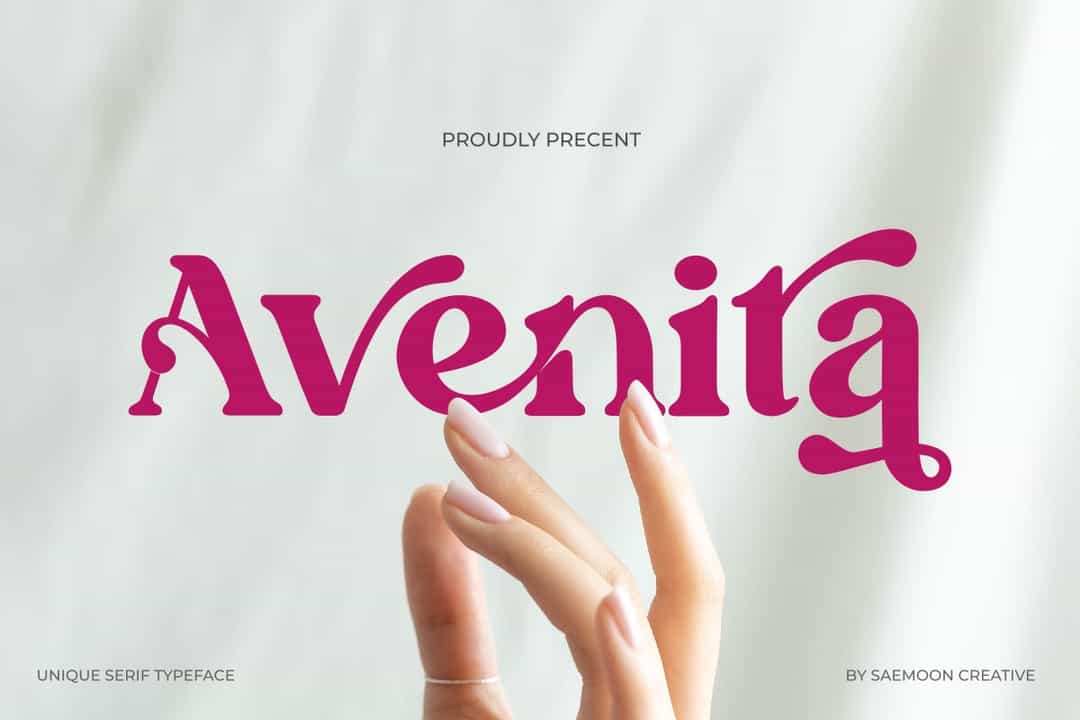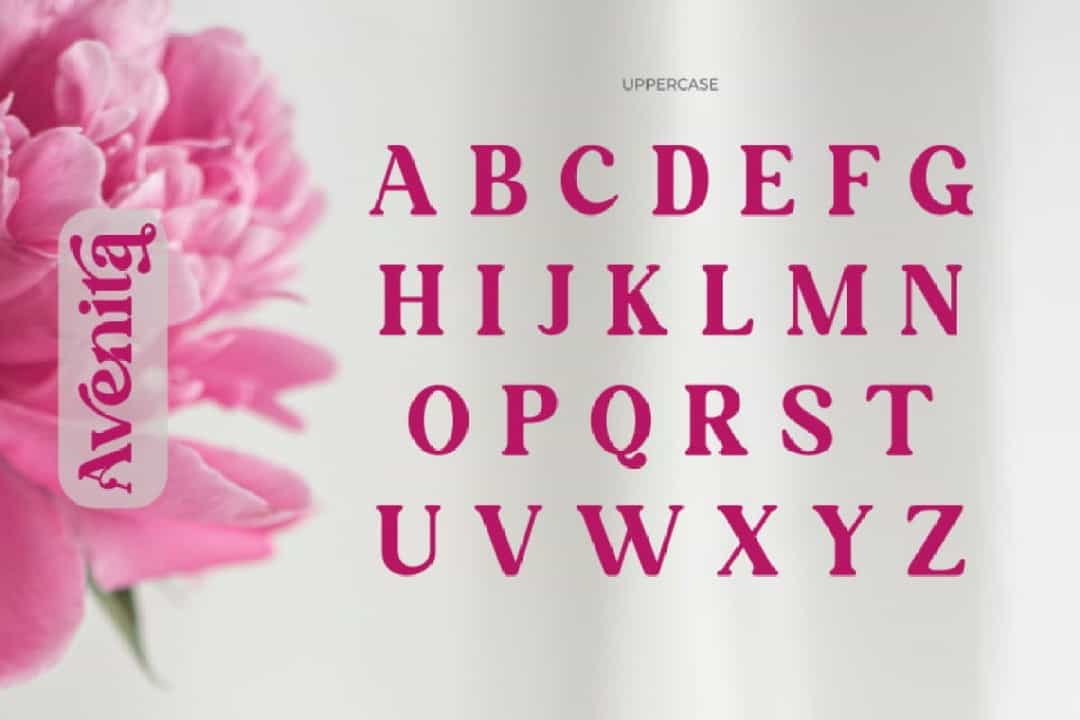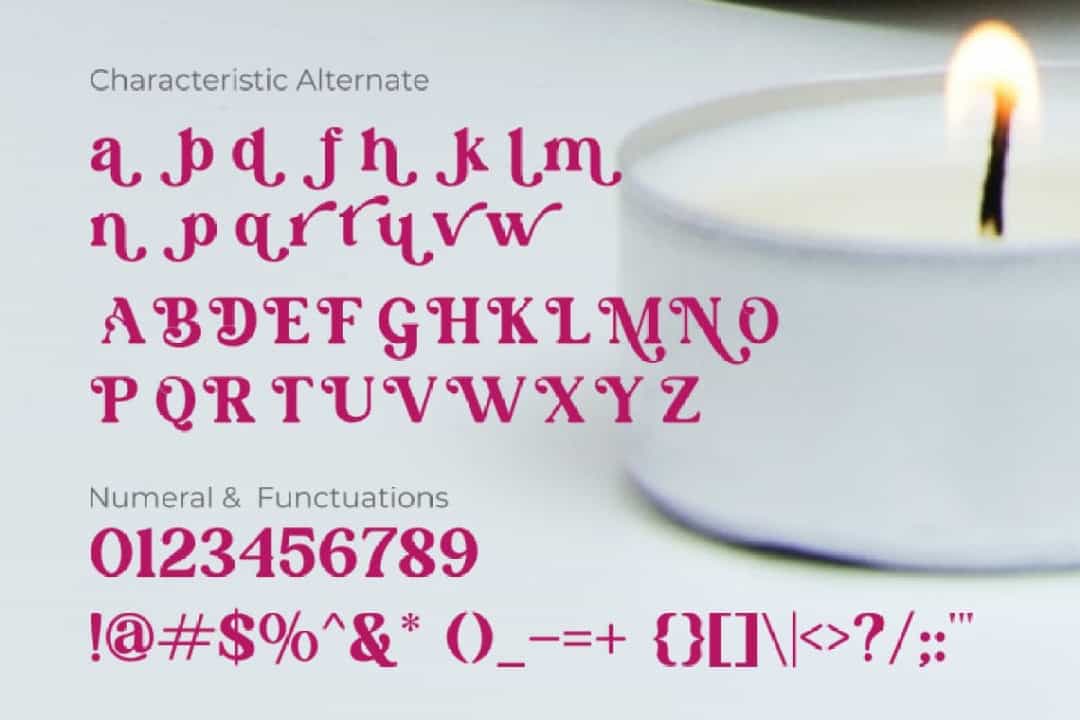
Avenita is an exquisite serif typeface, featuring ligature and other alternatives. Each letter in this font displays distinctive characteristics that add class and uniqueness to any design project that utilizes Avenita.